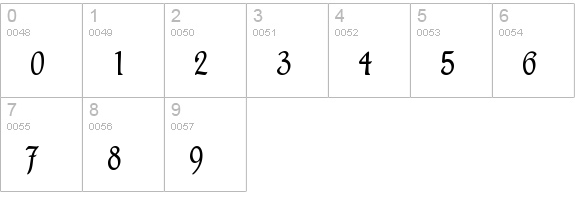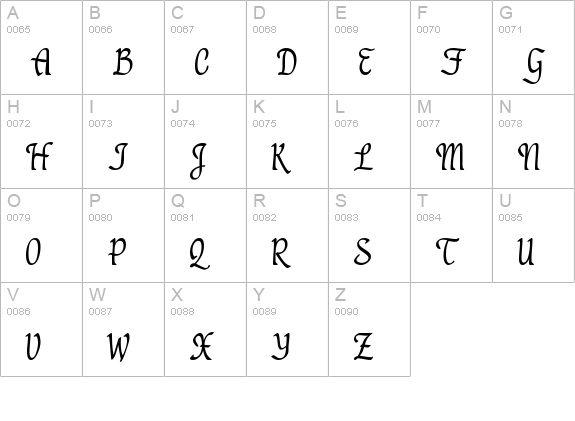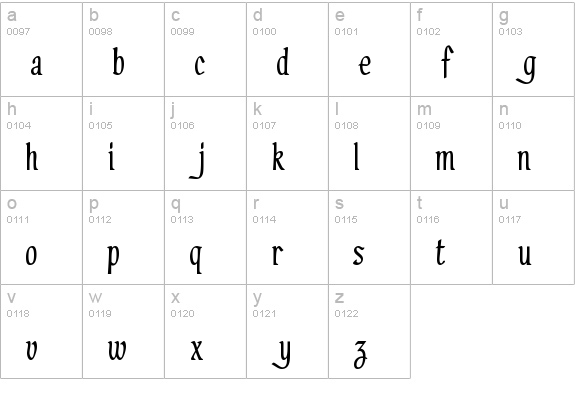
ElicitSSK Bold Font Details
ElicitSSK Bold is a strong, high-contrast variant in the ElicitSSK typeface family \xE2\x80\x94 well suited to headlines, attention-grabbing titles, and strong calls-to-action.
ElicitSSK Bold font is a striking and bold typeface designed to make a statement. With its strong and commanding presence, this font is perfect for headlines, titles, and any design that requires a touch of boldness. The thick strokes and sharp edges of ElicitSSK Bold demand attention and convey a sense of power and authority. What sets ElicitSSK Bold font apart is that it is not only visually impactful but also freely available to download at FontsMarket.com. This means you can easily access and use this dynamic font for your projects without any cost. Embrace the boldness of ElicitSSK Bold font and elevate your designs with its eye-catching style.